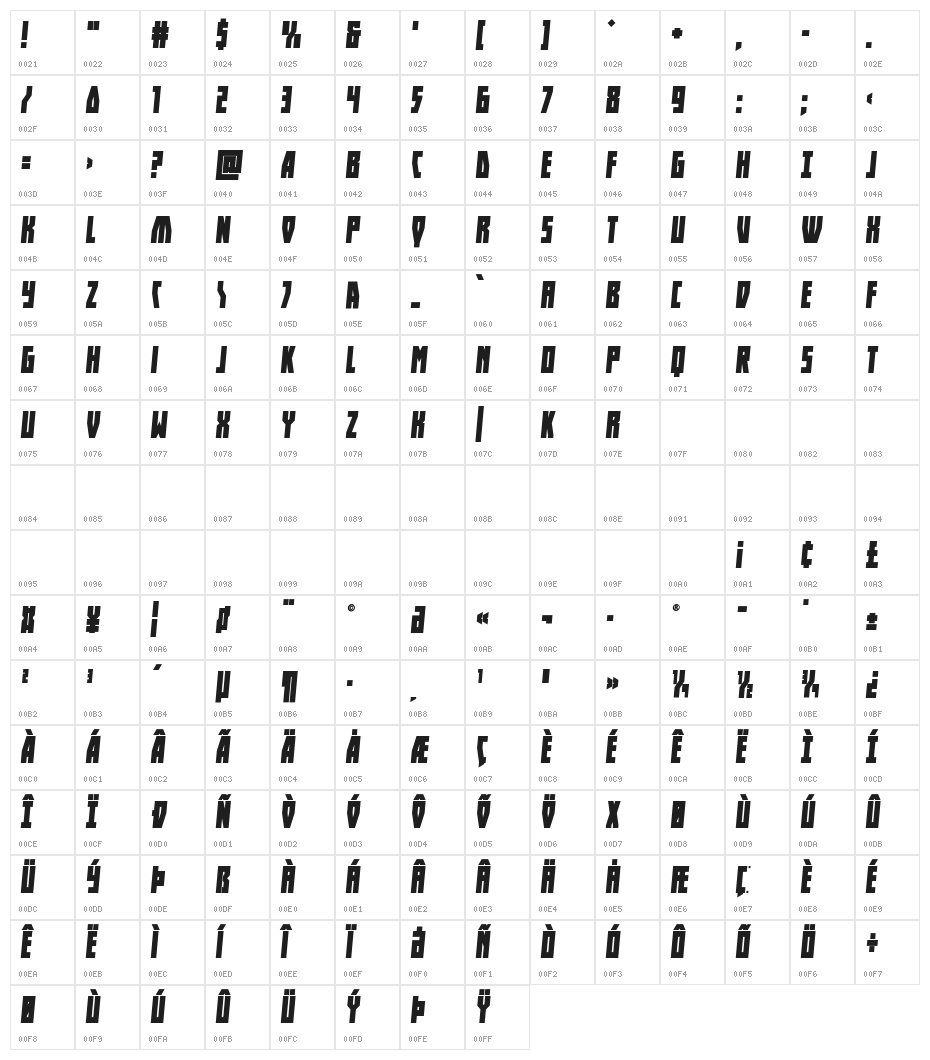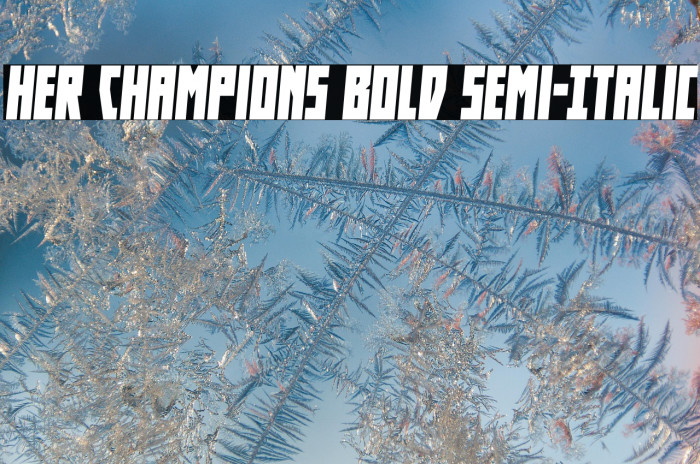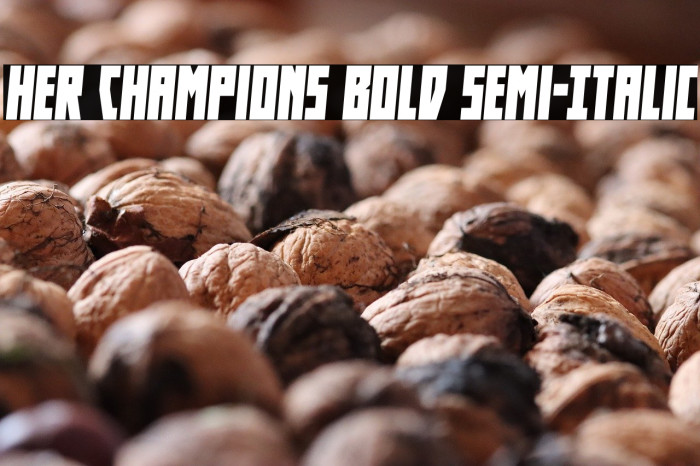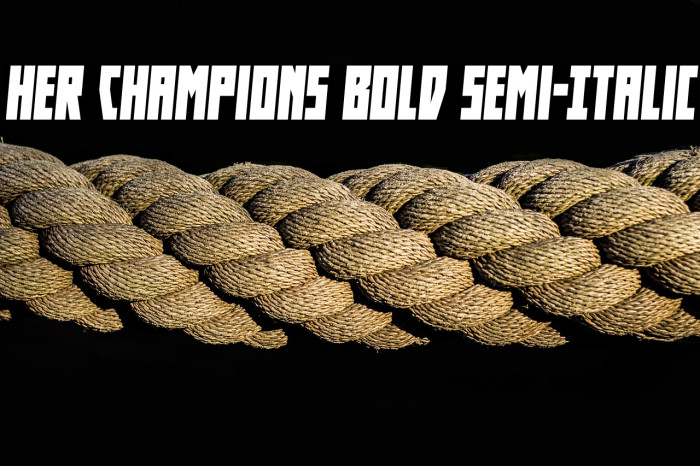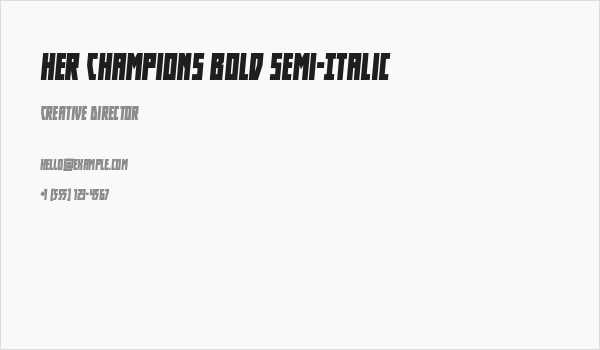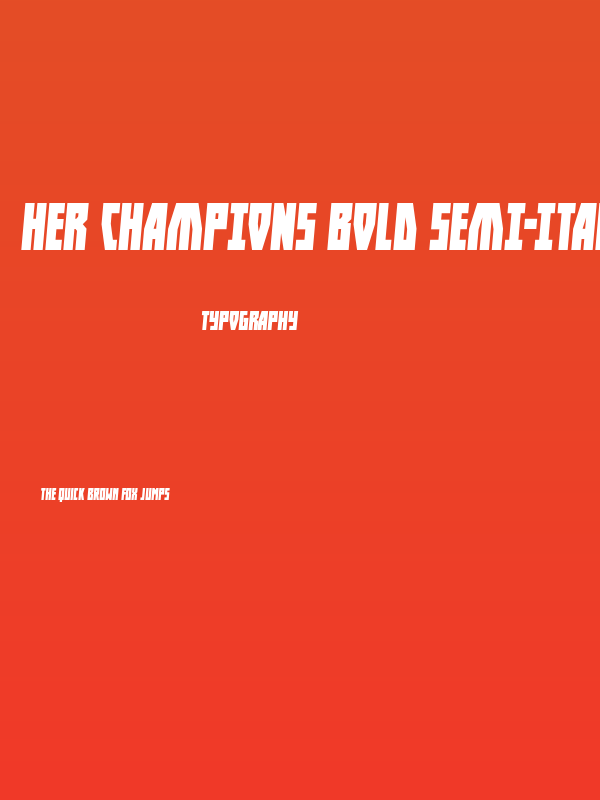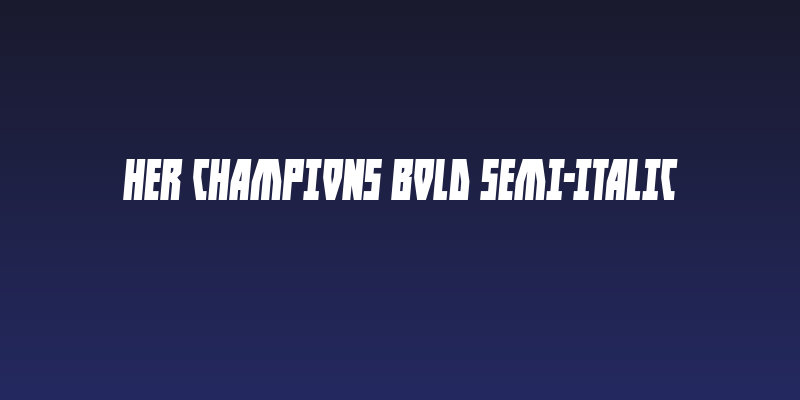
Her Champions Bold Semi-Italic Font
Her Champions Bold Semi-Italic Description
This font features a bold and dynamic style with a semi-italic slant, giving it a sense of movement and energy. The characters are blocky and angular, with sharp edges and a strong presence. The uppercase letters are particularly striking, with a consistent height and width that create a uniform appearance. The numbers and special characters maintain the same boldness, ensuring readability and impact. This font is designed to stand out, making it ideal for attention-grabbing headlines and titles.
| Proposed Projects | Ideal for sports branding, event posters, and dynamic headlines. |